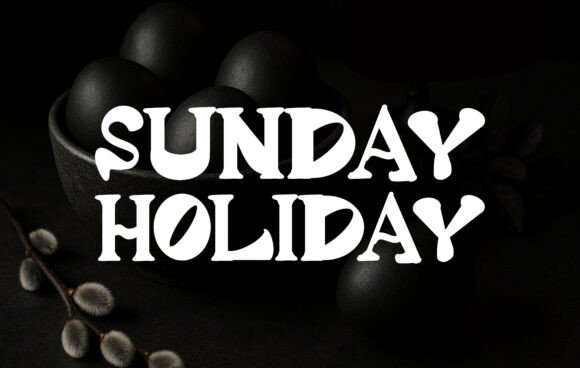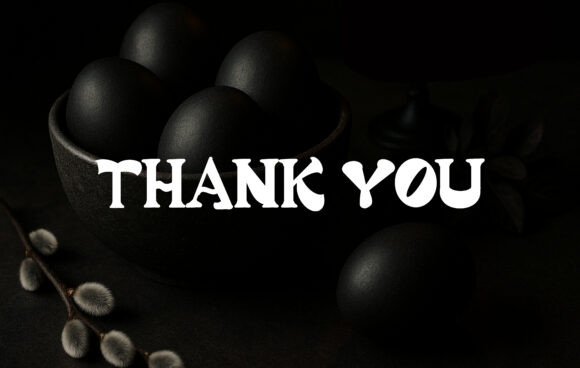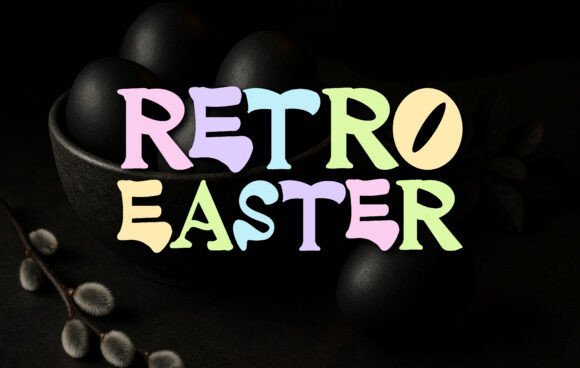
Introduction to Retro Easter Font
Retro Easter font is an authentic display font with a romantic touch.
Key Features of Retro Easter Font
Why Choose Retro Easter Font?
Retro Easter Font offers exceptional quality and versatility, making it a valuable addition to your design toolkit. Whether you’re creating for personal projects or commercial use, Retro Easter Font delivers professional results.